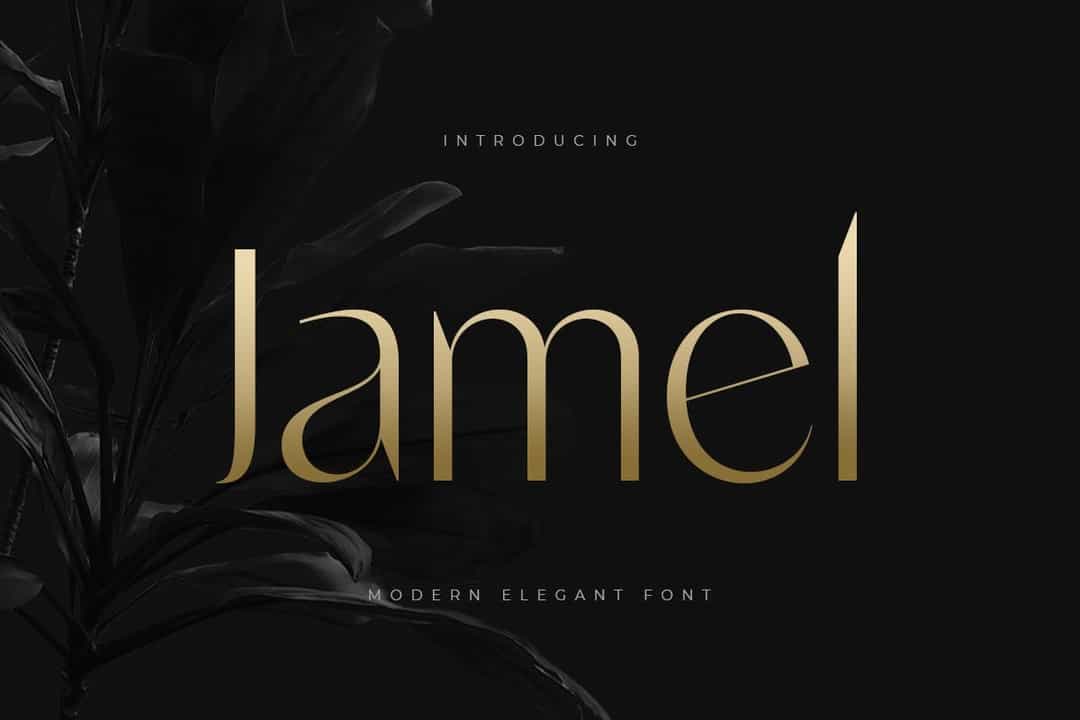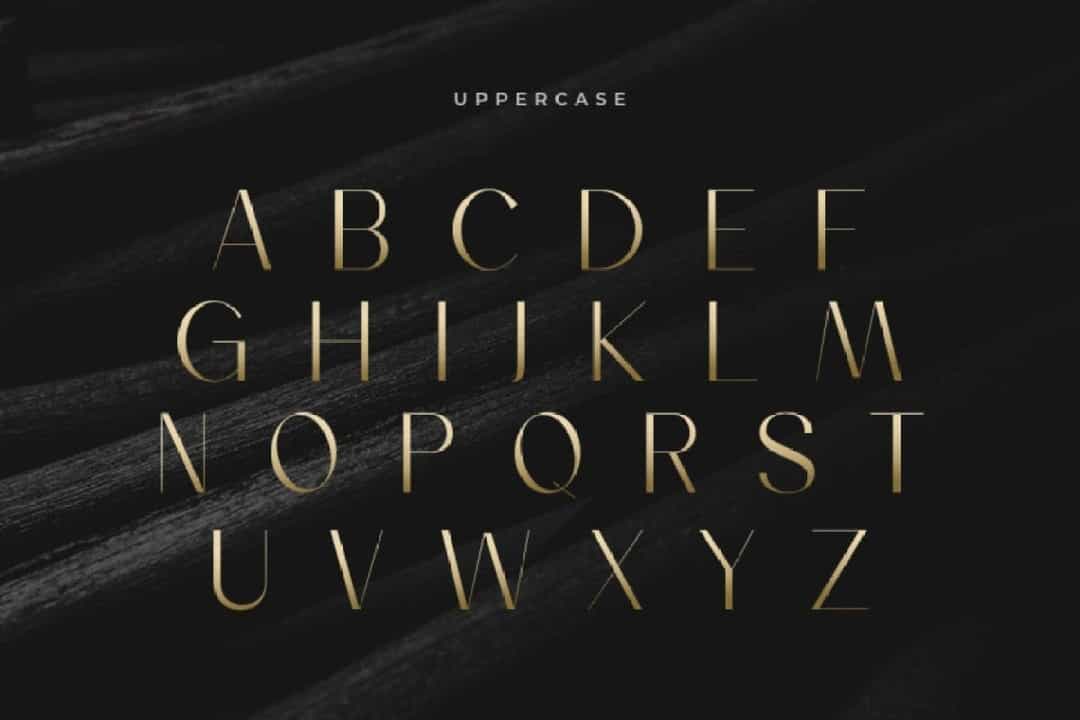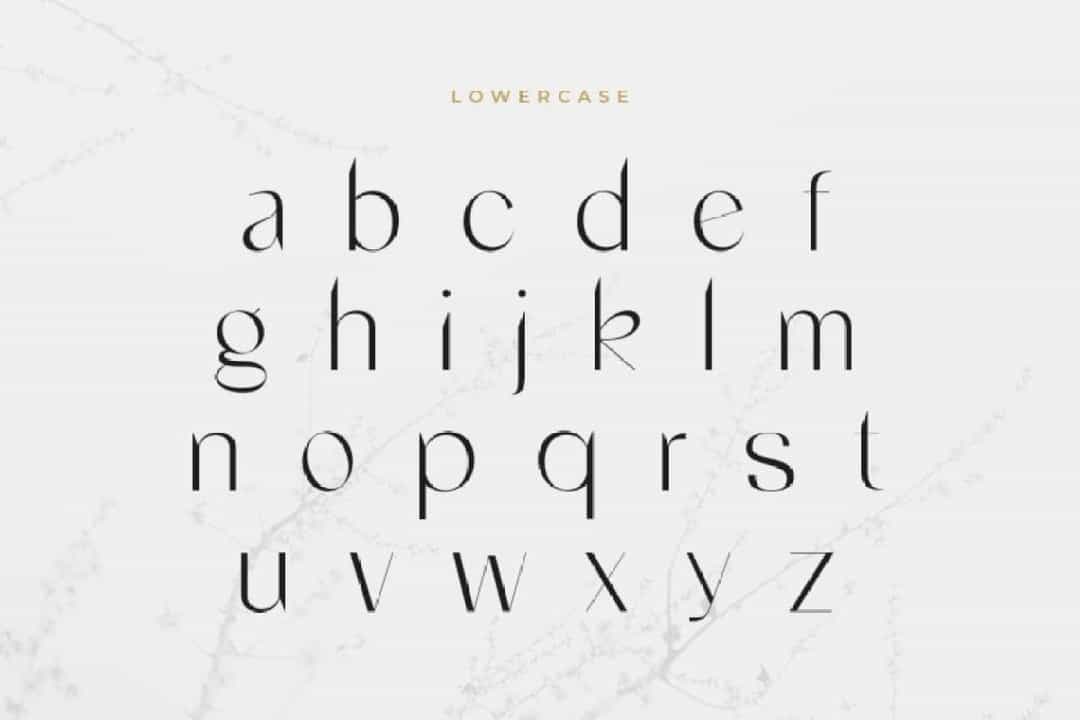
Discover Jamel Font, part of the Sans Serif collection—a versatile and unique font perfect for adding a personal touch to your projects. Download it for free and enjoy crafting designs with style, from invitations to social media posts. This font is available exclusively for personal use, giving you the freedom to create without limits. Unlock your creativity with Jamel Font today!
Jamel Modern Luxury Elegant Sans Serif Font is designed with a sharp shape that gives your designs an elegant appearance. A brand new San Serif font, specifically tailored for Title, Headline and other typography needs that stand out and comes equipped with an optional ligature to allow for custom variations to create unique variations for Title, Headline or other typography requirements that stand out.